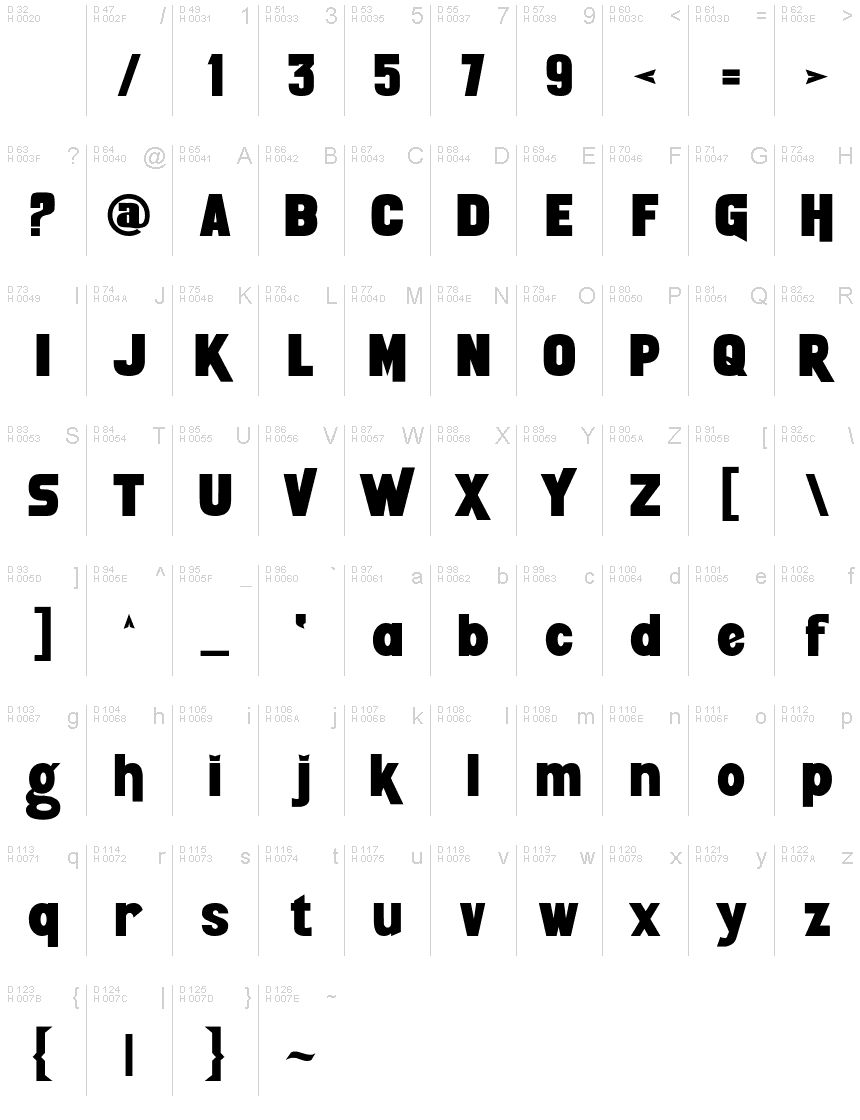
Skaters Display Font is a simple, bold and bold display font. Use it for each of your casual designs and report how it makes it stand out!
Presentazione e campione visivo del carattere Skaters
Skaters